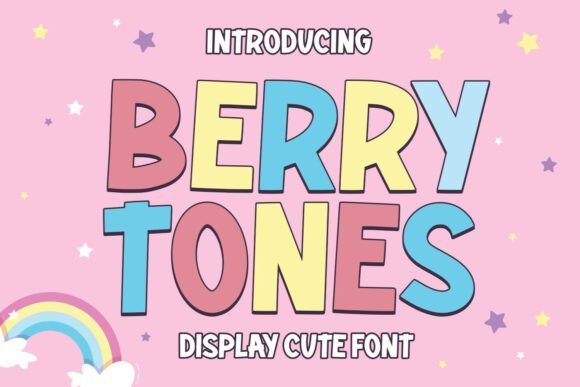
Unleash the Joy with Berry Tones Font
Who hasn’t felt the rush of excitement when planning a birthday party for a little one? The colors, the decorations, the cake – it’s all about creating a sense of wonder and magic. And what better way to capture that essence than with the perfect font? Enter Berry Tones Font, a cheerful handwritten display font that bursts with playfulness and energy.
Berry Tones Font is the perfect companion for designers looking to add a touch of whimsy to their projects. Whether it’s a party invitation, kids’ product packaging, or fun branding, this font brings smiles wherever it goes. Its unique personality makes every word feel like a celebration, making it an invaluable addition to any designer’s toolkit.
- Font Family: Berry Tones is a unique, hand-drawn font with a warm and friendly tone.
- Character Count: The font includes 250+ glyphs, ensuring comprehensive language support.
- Unique Characteristics: The font features subtle texture and imperfections, giving it a hand-crafted feel.
I recently had the chance to work with the Berry Tones font, and I must say it’s a lovely addition to any design project. ✨ The font’s playful and whimsical feel immediately caught my attention, and I can see it working well for a variety of applications, from children’s book covers to food blogs.
- ✨ The font’s unique character set is a standout feature. It includes a range of special characters, from cute symbols to intricate flourishes, that can really elevate a design.
- ✨ The font’s color palette is also well-suited for modern designs. The subtle berry-inspired hues are both visually appealing and versatile.
- ✨ The font is also relatively easy to read, even at smaller sizes, making it a great choice for body text.
However, there are a few limitations to keep in mind. ⚠️ The font can be a bit overwhelming if used extensively throughout a design, so it’s best to use it sparingly to avoid visual clutter.
Overall, I’m really impressed with the Berry Tones font. It’s a fun and creative addition to any design project, and with a bit of restraint, it can really help take your designs to the next level.
Use Berry Tones Font for creating playful and whimsical designs, such as:
- Birthday party invitations